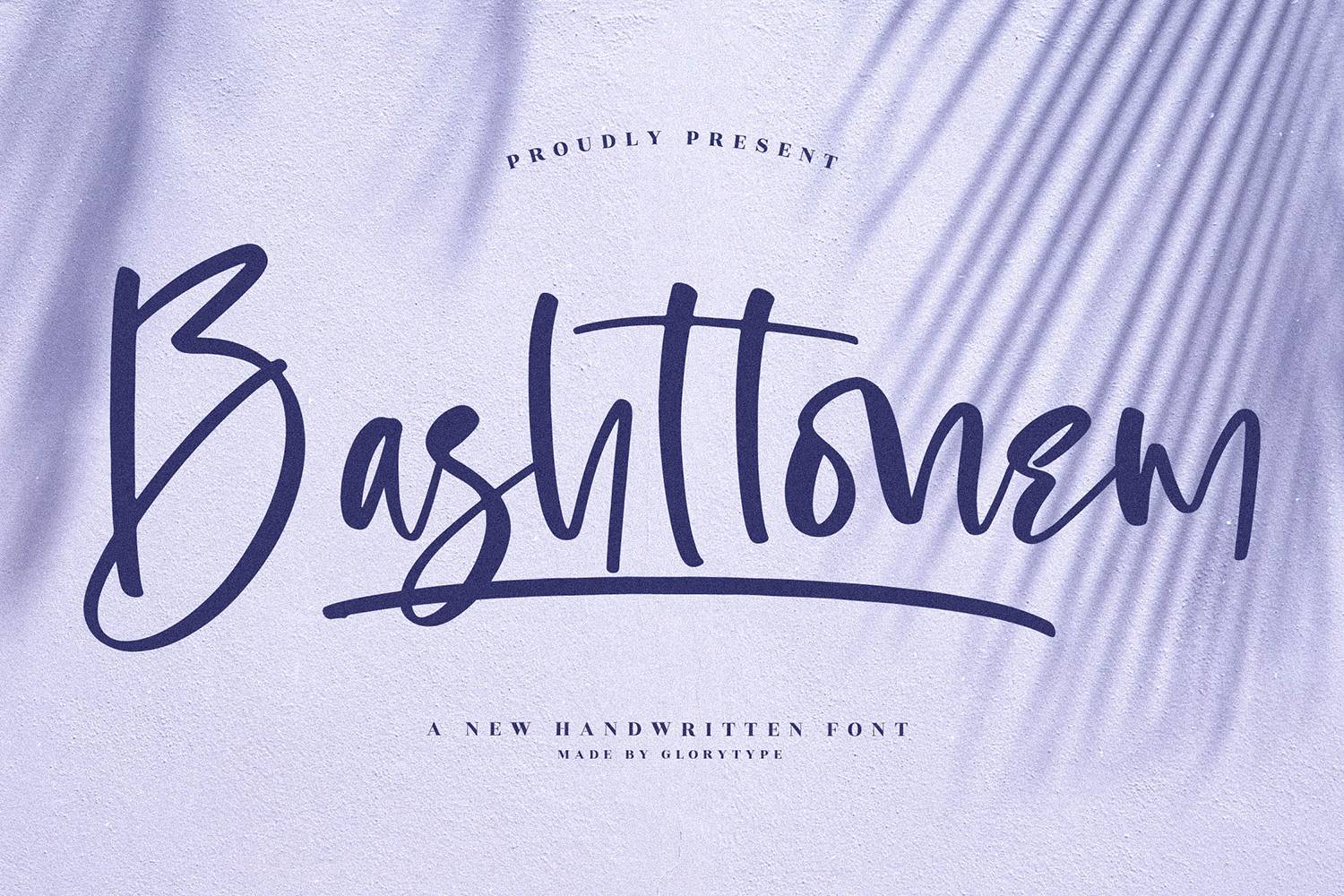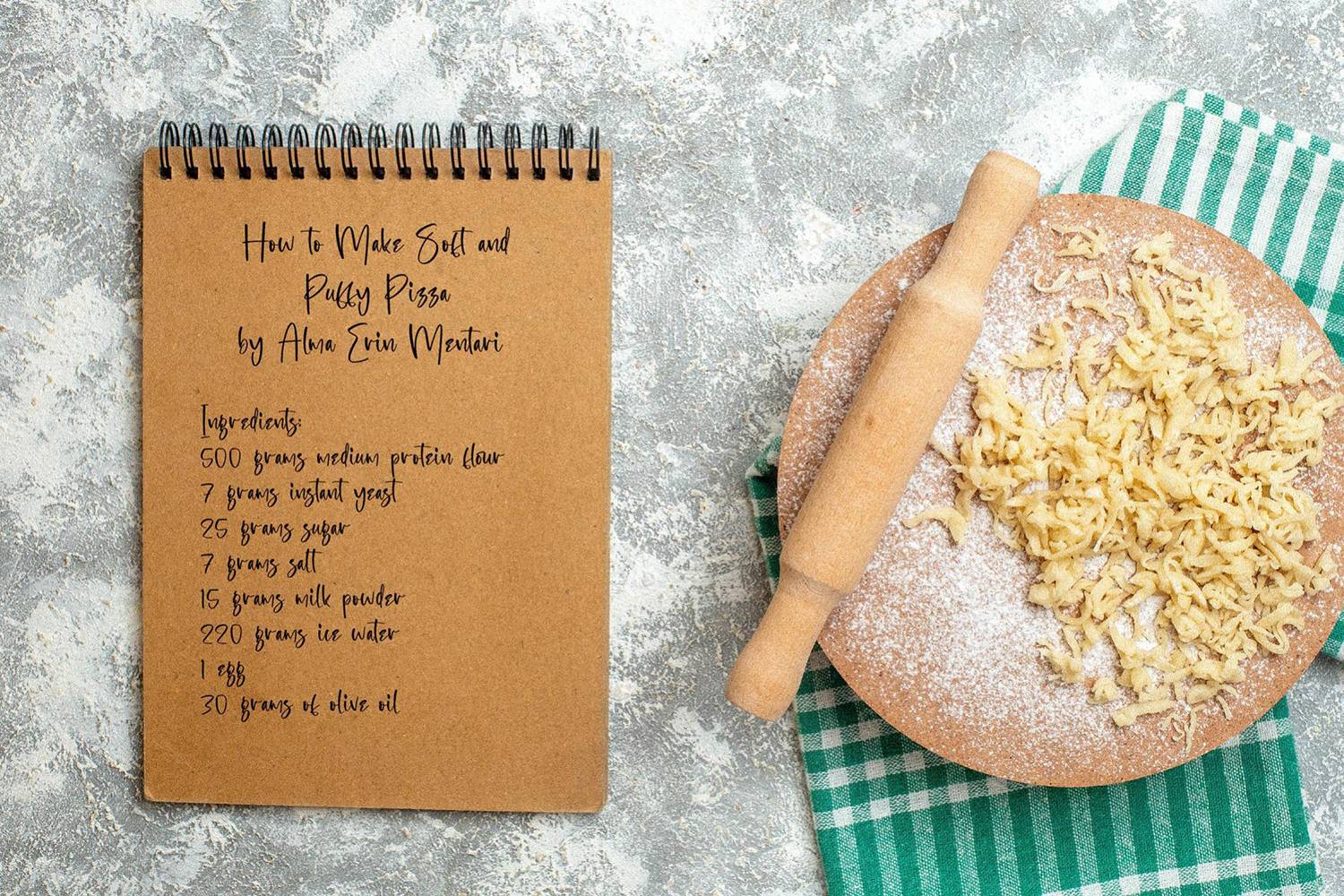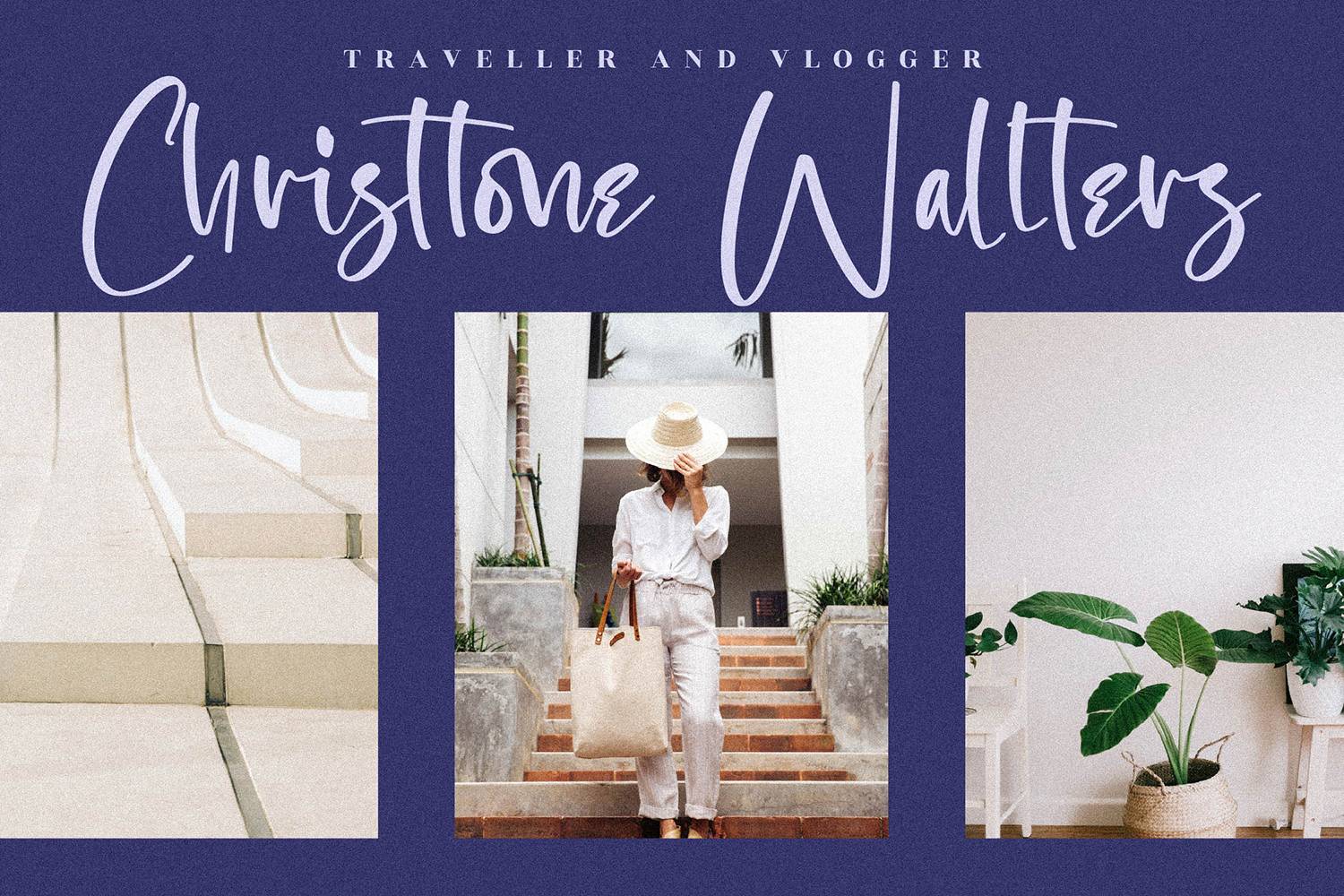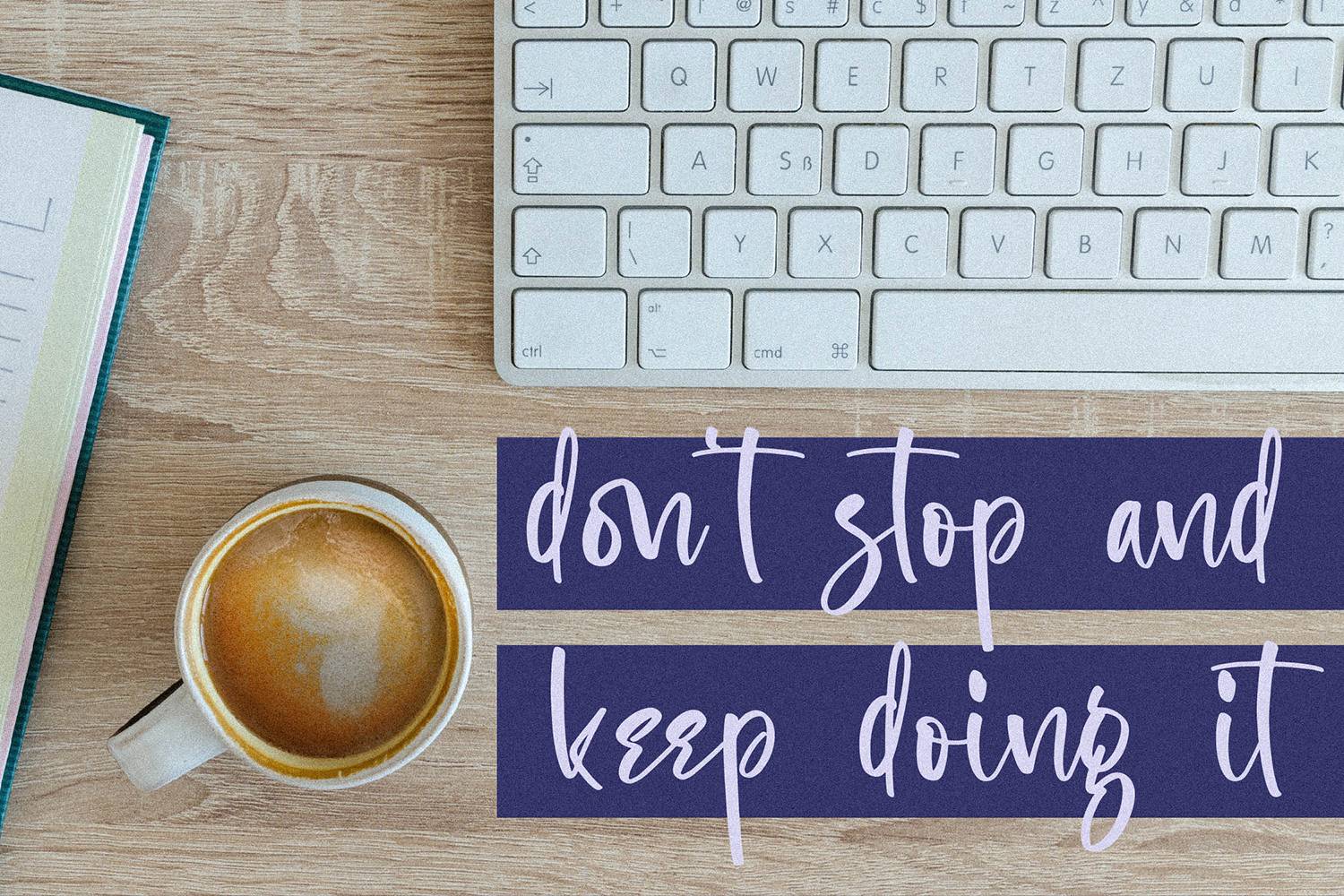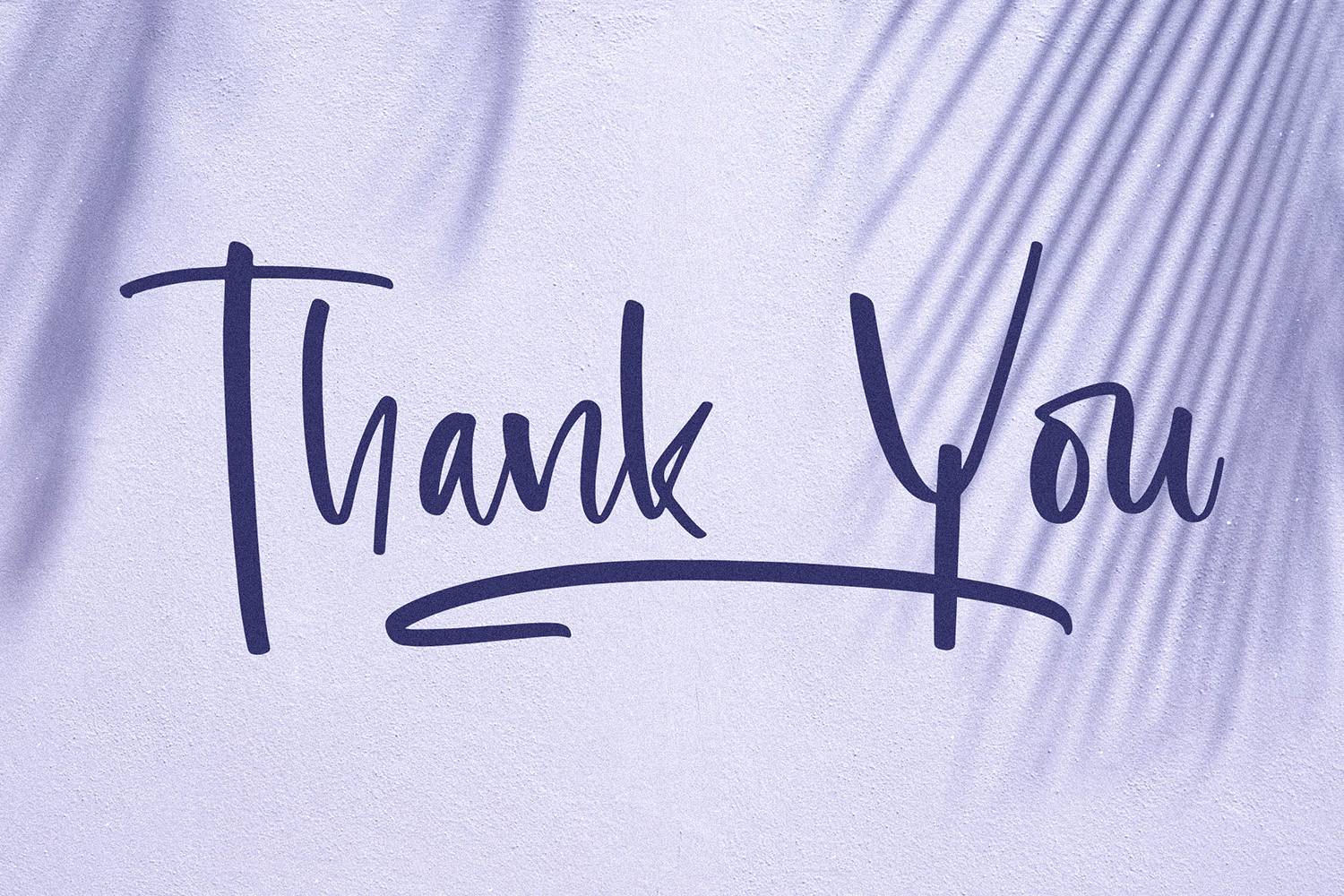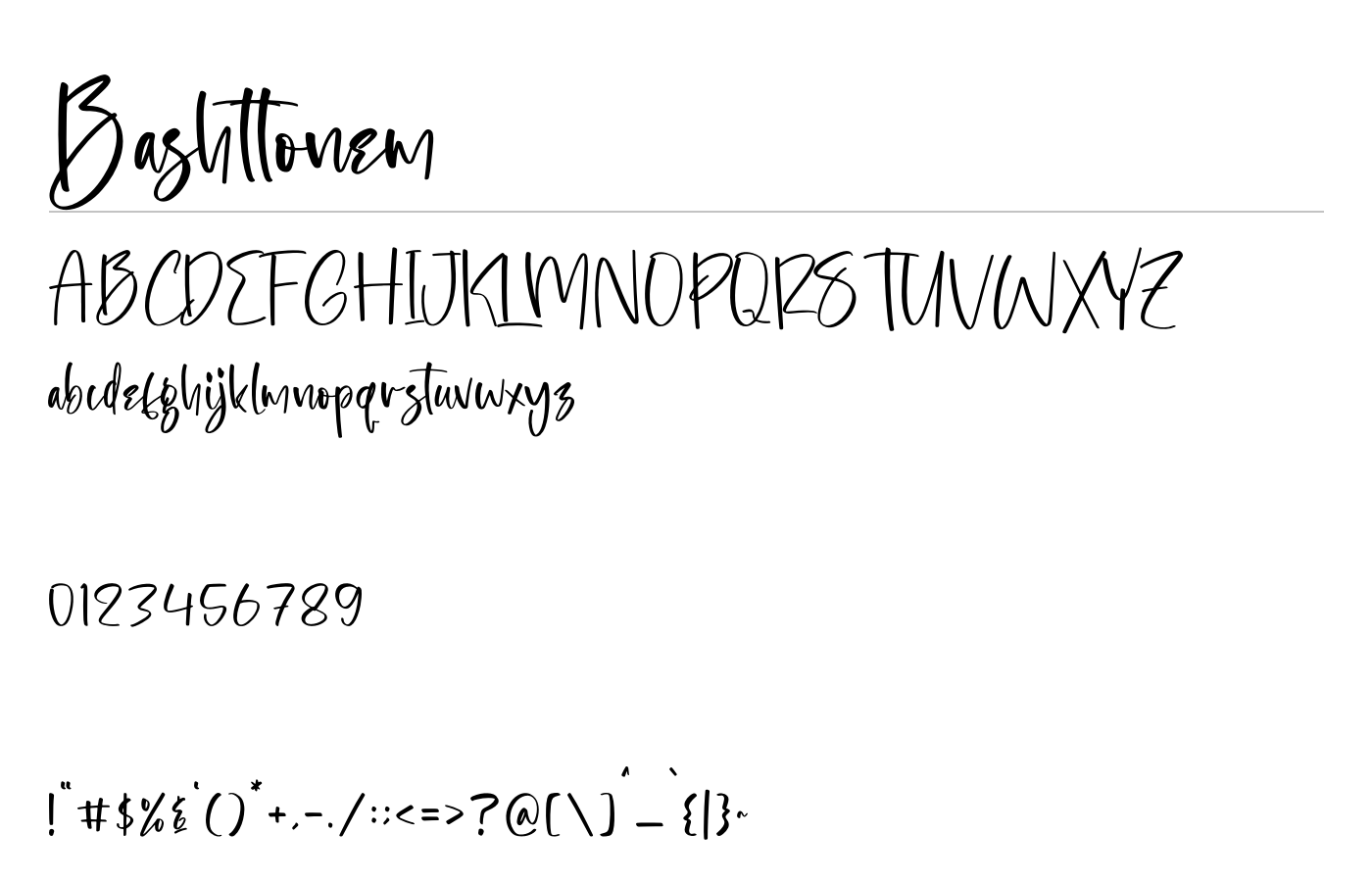
Bashttonem is a playful and casual handwritten font with a lively, informal style. Its tall, slender letterforms and uneven strokes give it a personal, friendly feel, making it perfect for creative projects, invitations, and branding that seeks a warm, approachable touch. This font works well in headlines and display uses where personality and charm are key.
Bashttonem Font
About Bashttonem Font